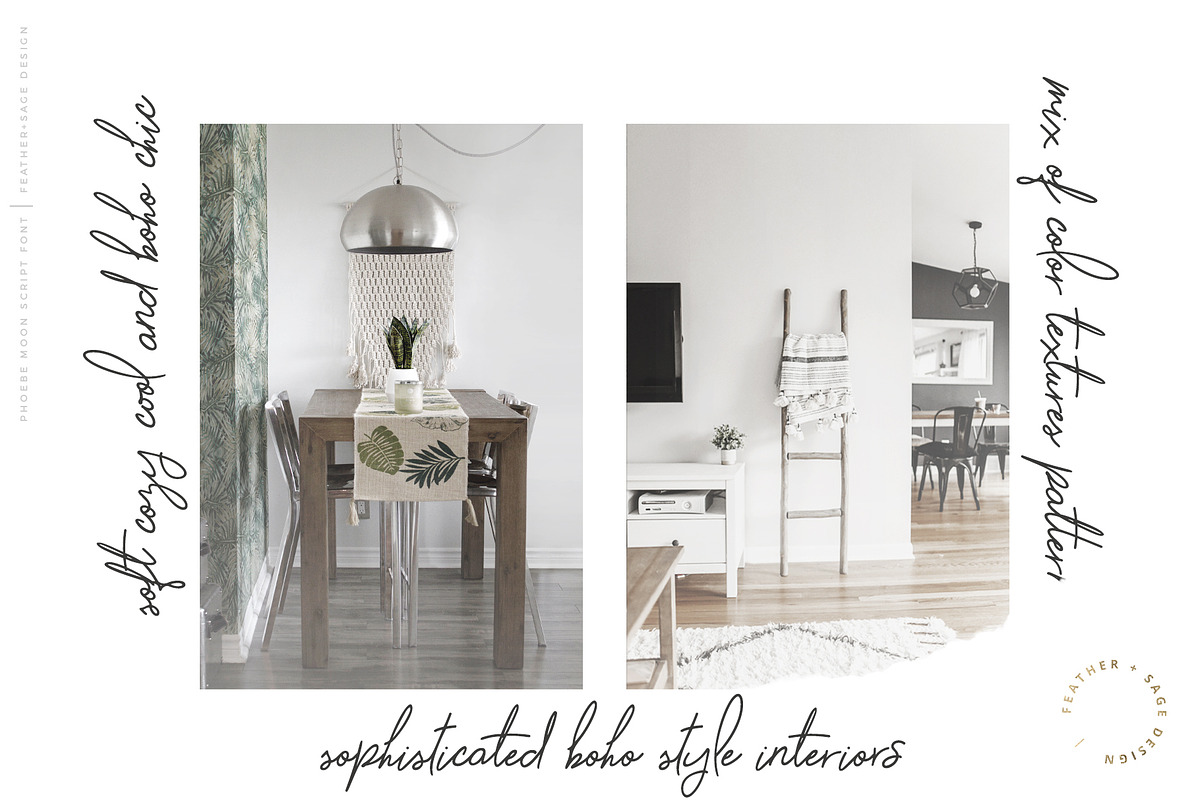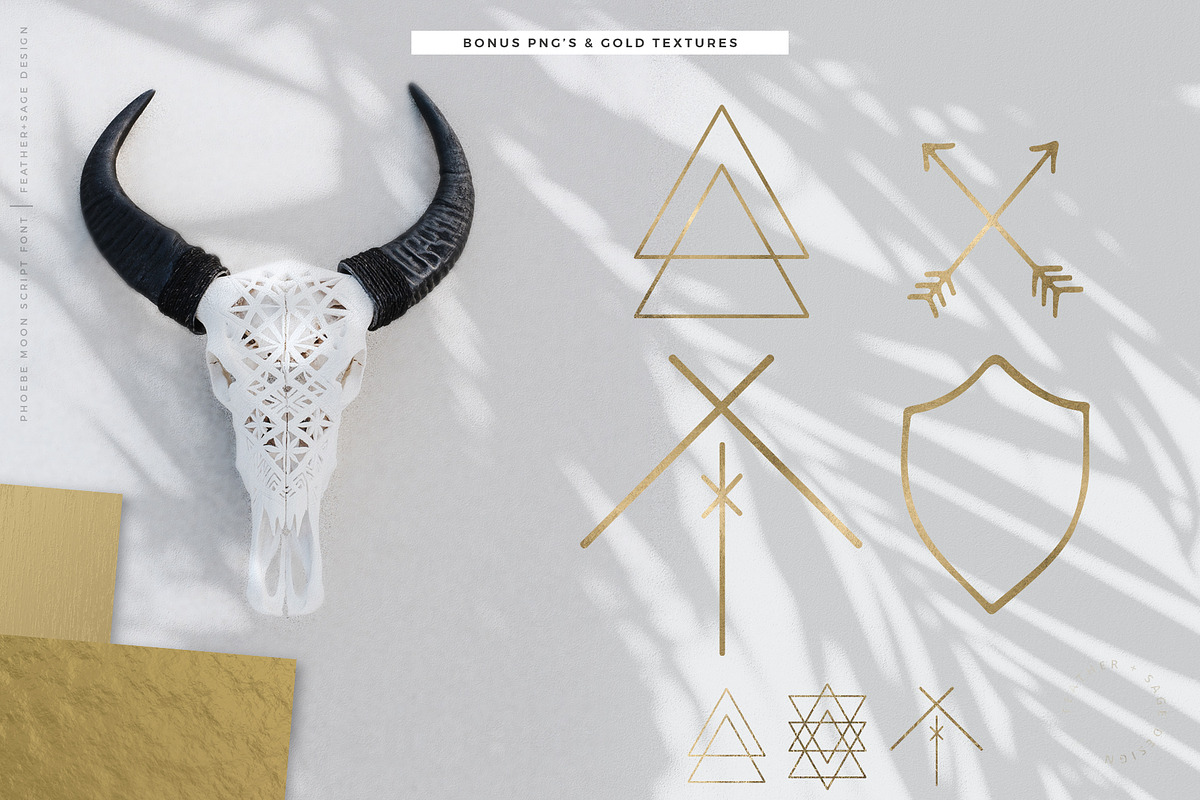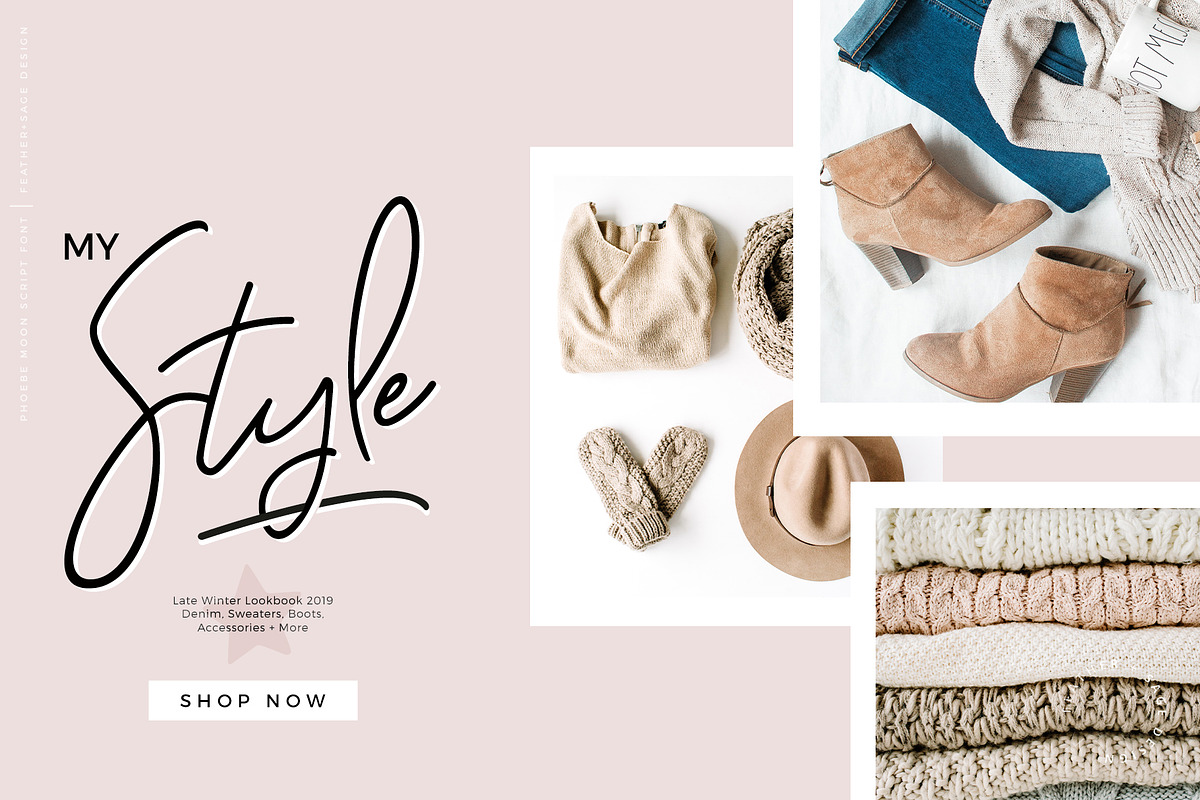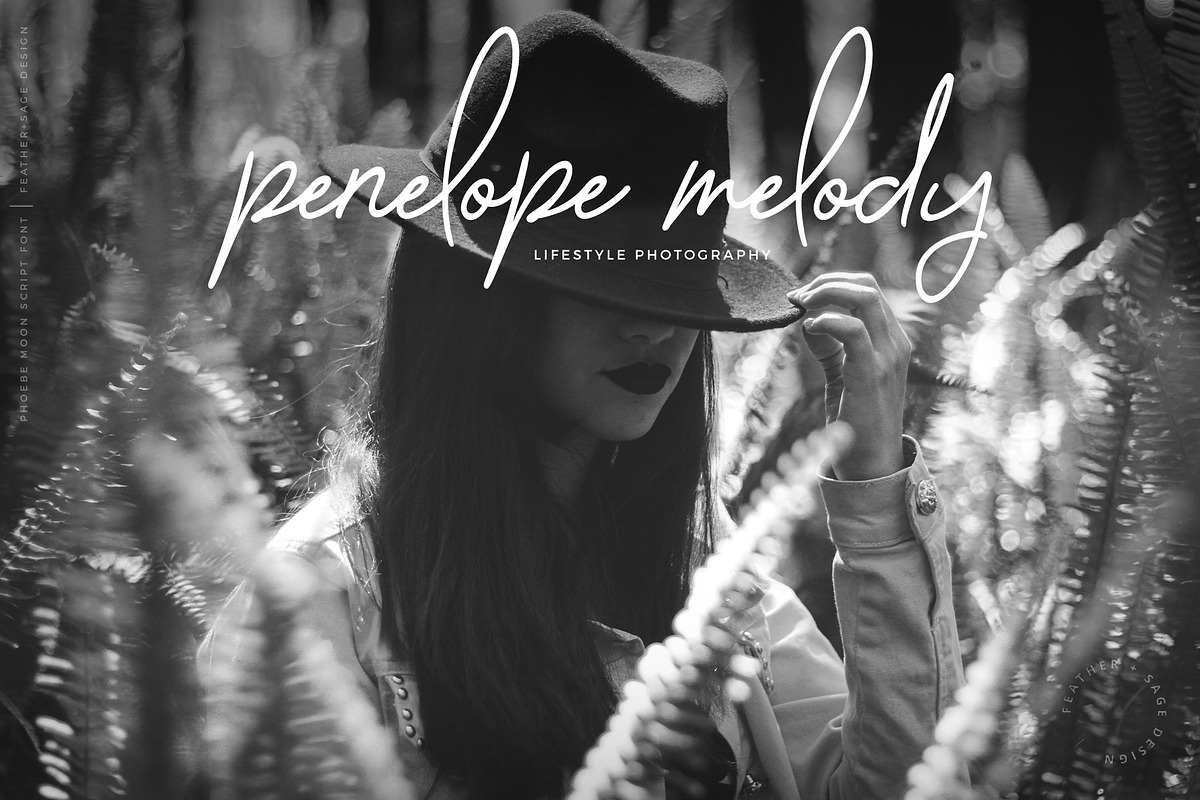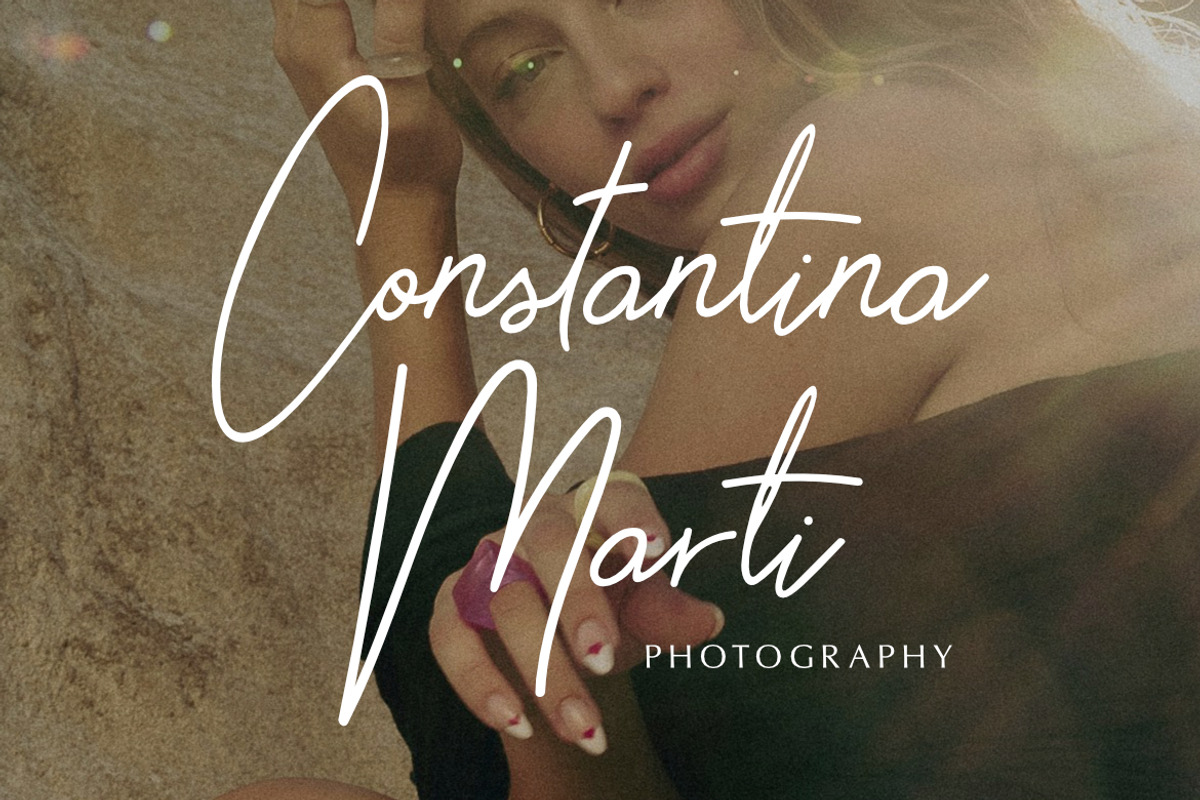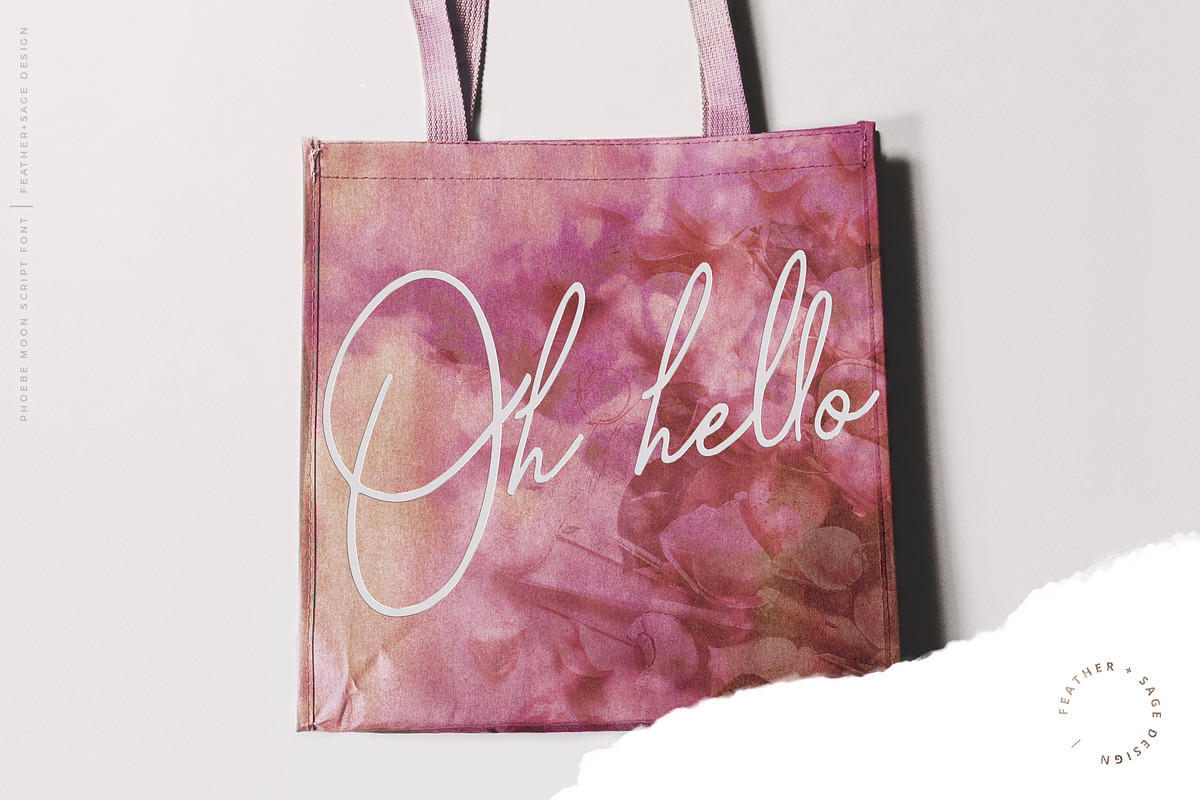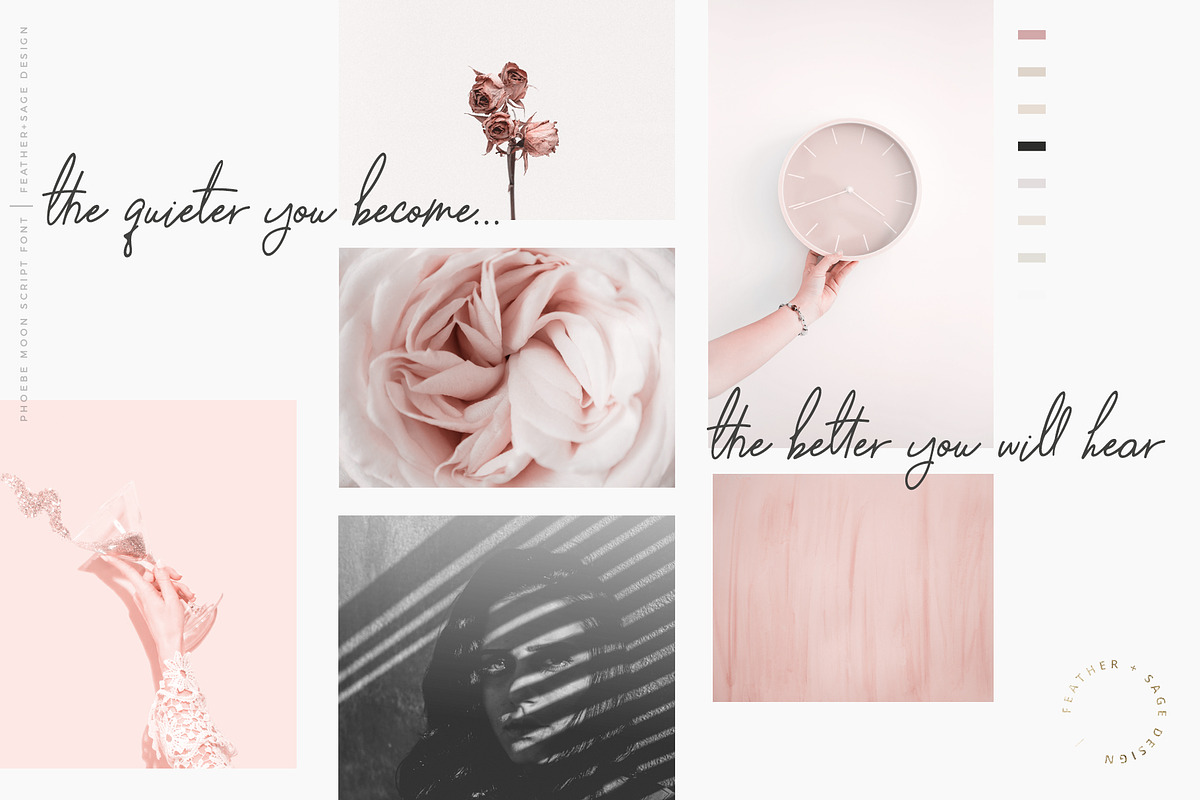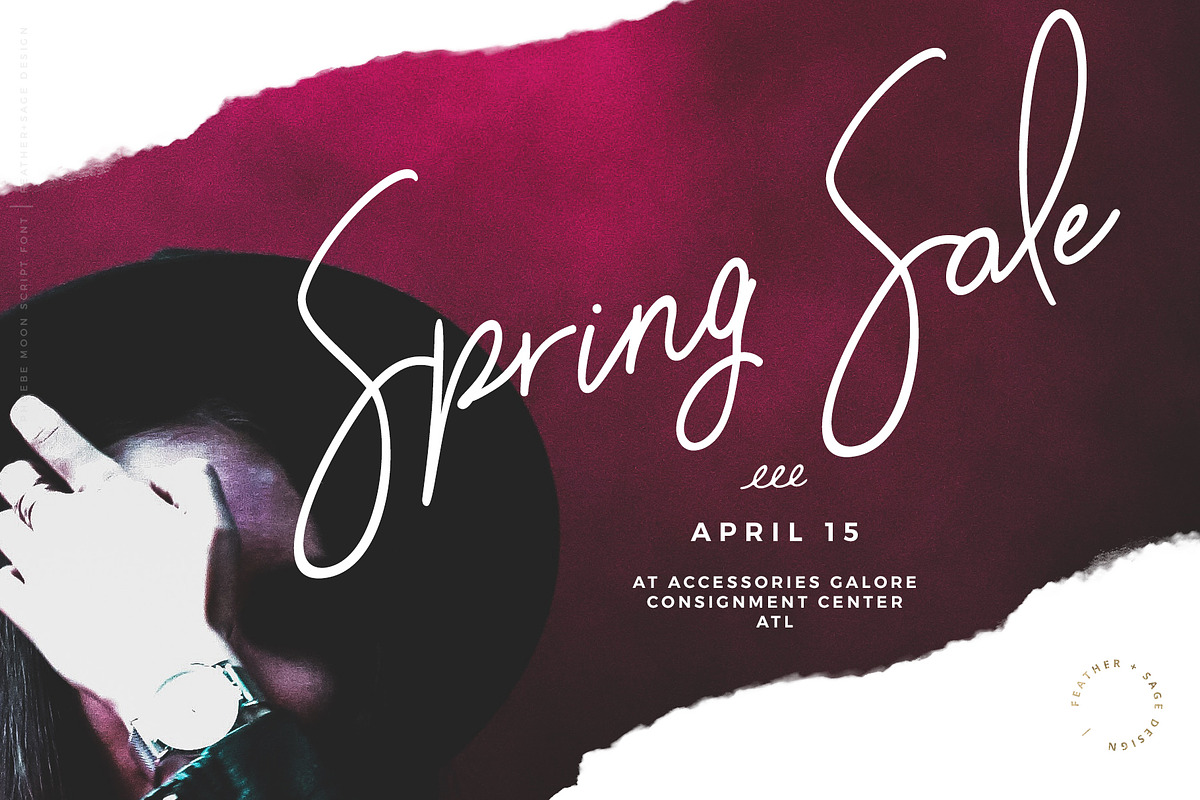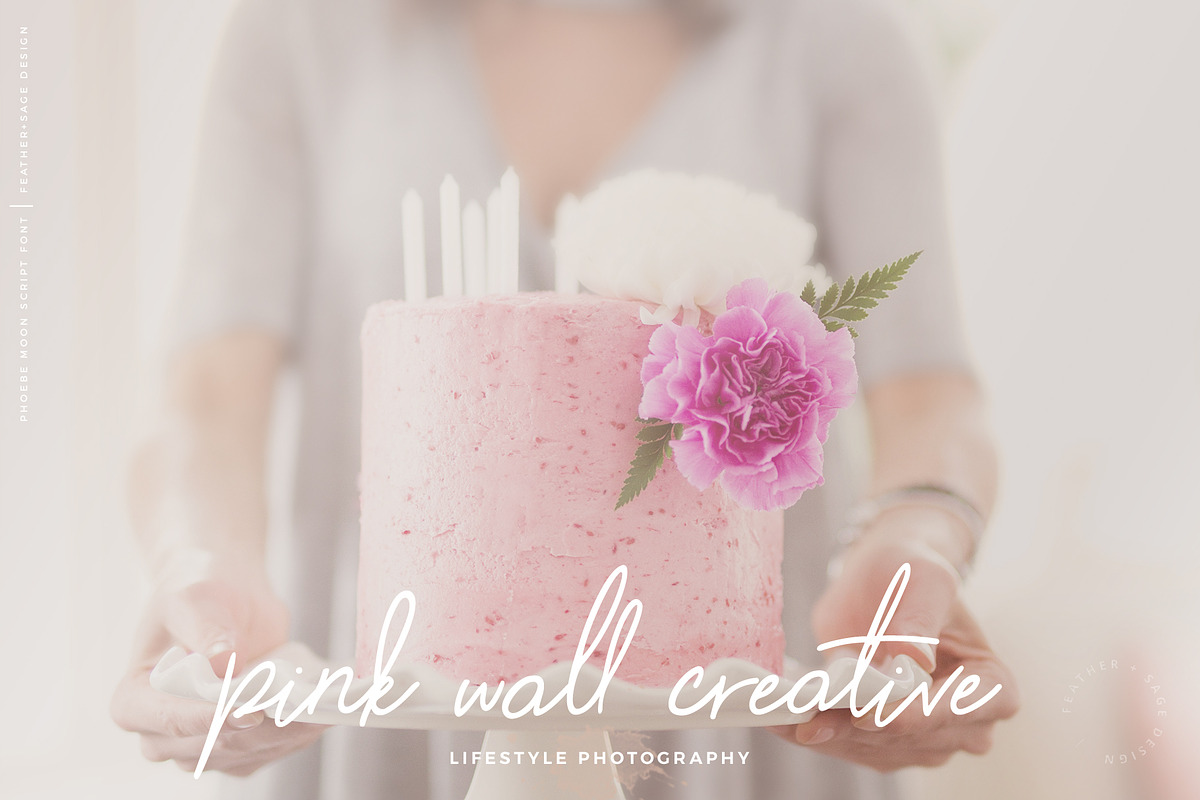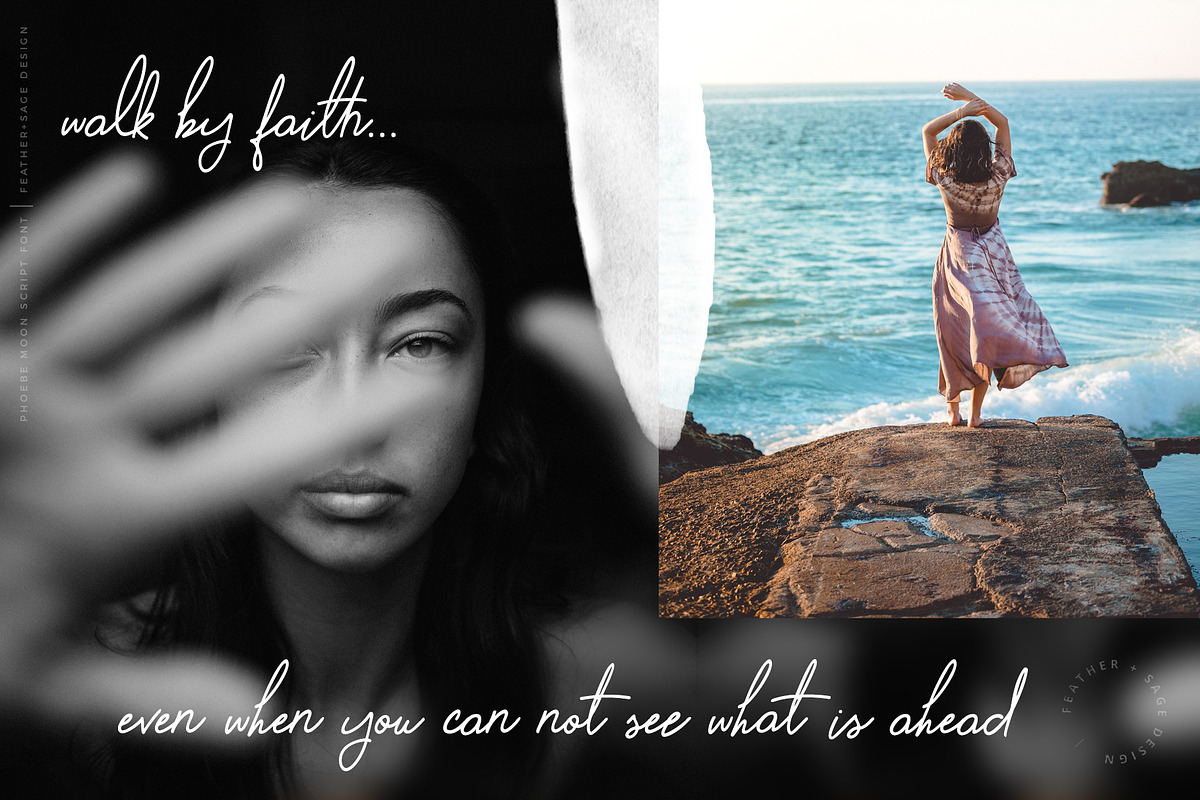
Phoebe Moon Script | A fresh organic hand-written casual script font
Introducing the Phoebe Moon Script Font by Feather & Sage Design! A casual fresh script font, that's playful, and organic. It includes 1 font style with oversized uppercase letters, plus a separate 'Ornaments' font file that contains 89 individual hand drawn graphic elements (easily accessed using basic keyboard strokes including the upper and lower case letters, punctuation, and numerals keystrokes).
As an added bonus, I've also included all the ornaments graphics as PNG files with gold, as well as 2 gold textured papers for you to use and overlay text or quotes, etc..
- Upper + Lowercase Letters
- Numerals, Punctuation, Symbols
- Multilingual support included for Western European languages (give your characters a test drive below): Á Ä À Å Ã Æ Ç Ð É Ê Ë È Í Î Ï Ì Ñ Ó Ô Ö Ò Ø Õ Œ Þ Q Ú Û Ü Ù Ẃ Ŵ Ẅ Ẁ Ý Ŷ Ÿ Ỳ á â ä à å ã æ ç ð é ê ë è í î ï ì ñ ó ô ö ò ø õ œ þ ß ú û ü ù ẃ ŵ ẅ ẁ ý ŷ ÿ ỳ
- Standard Ligatures as shown in previews (only accessible using the .OTF font files)
- PUA (private use areas) encoded characters
- Contains 89 individual hand drawn elements that can be accessed using the Uppercase, Lowercase letters, and numerals keys